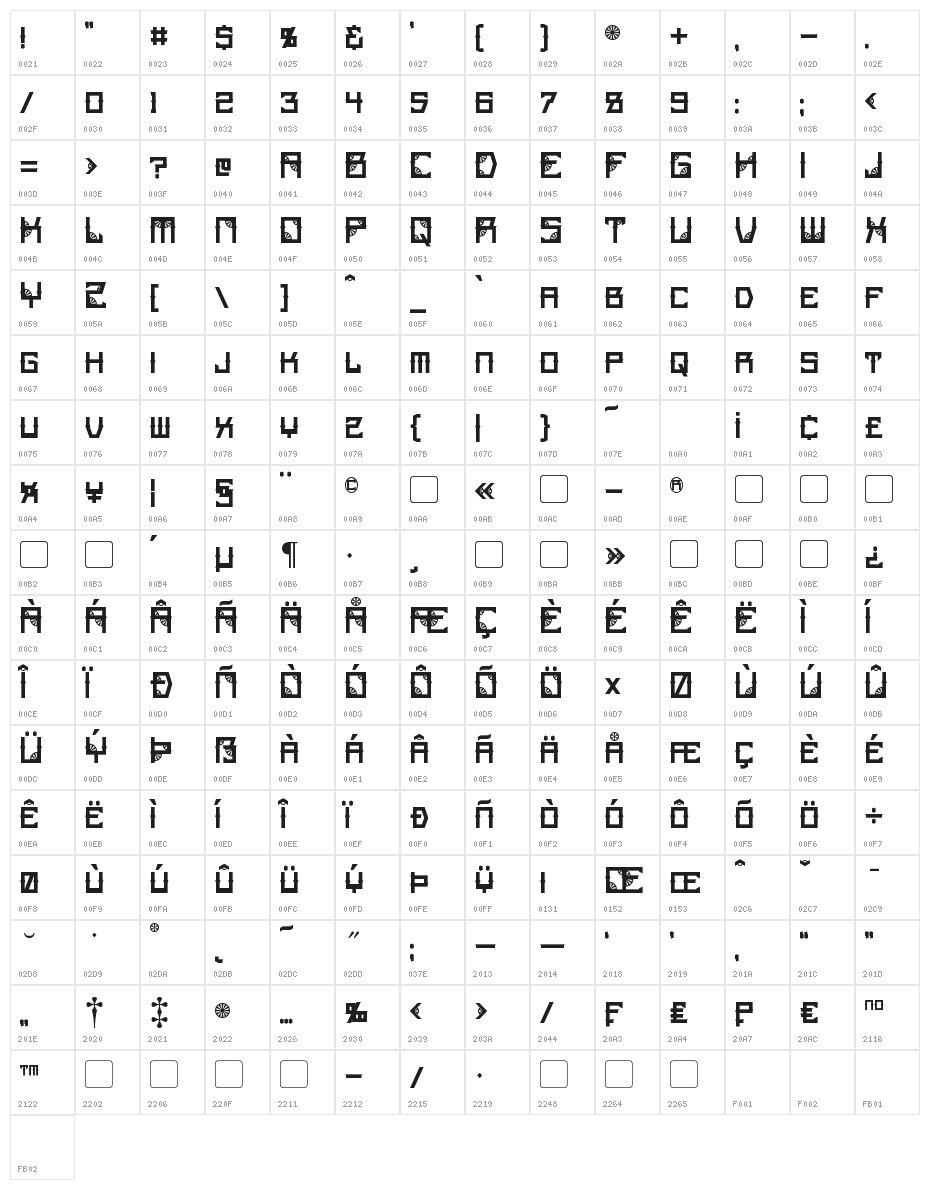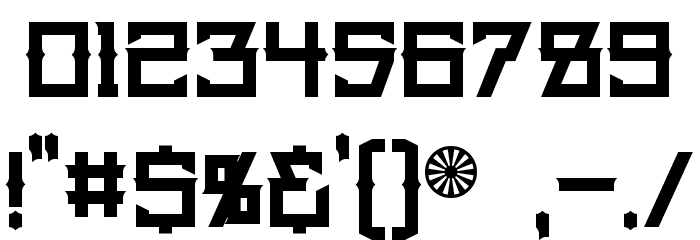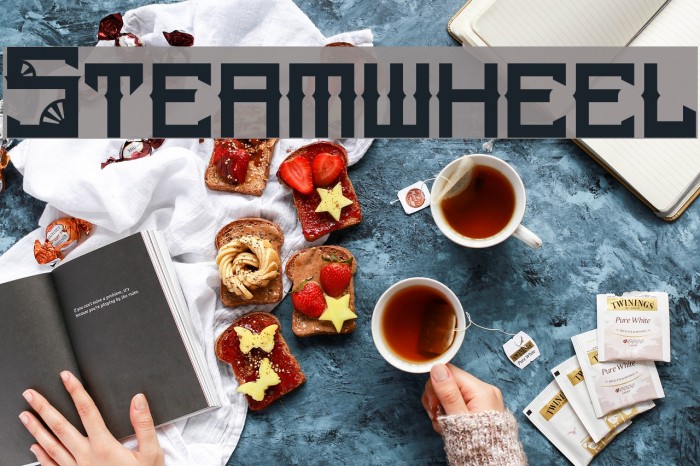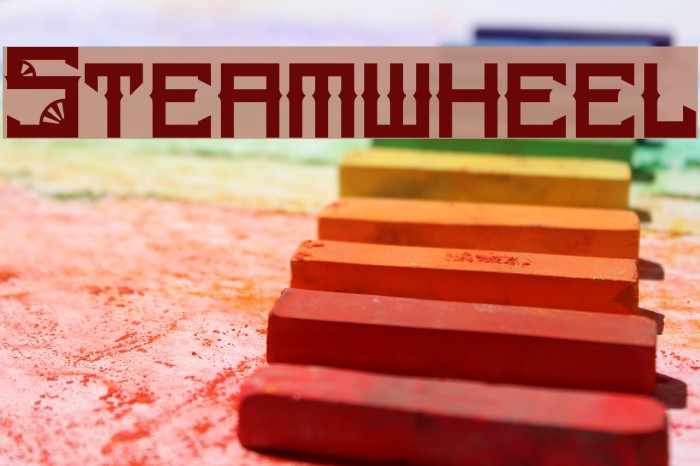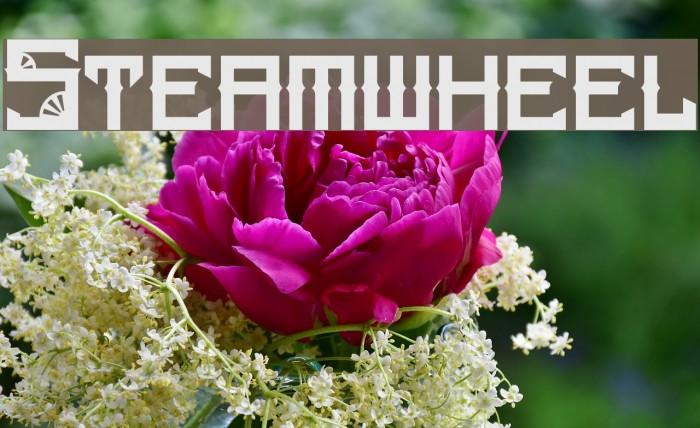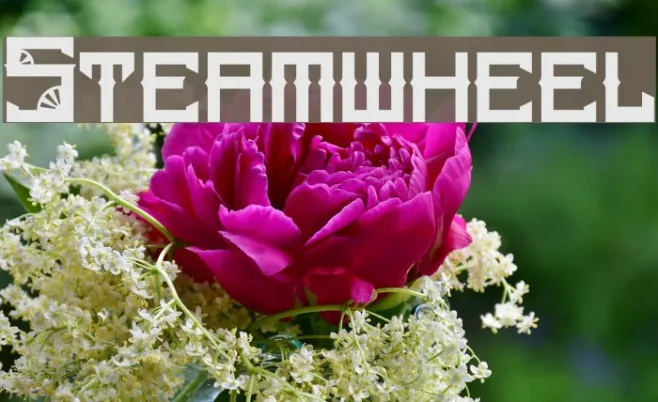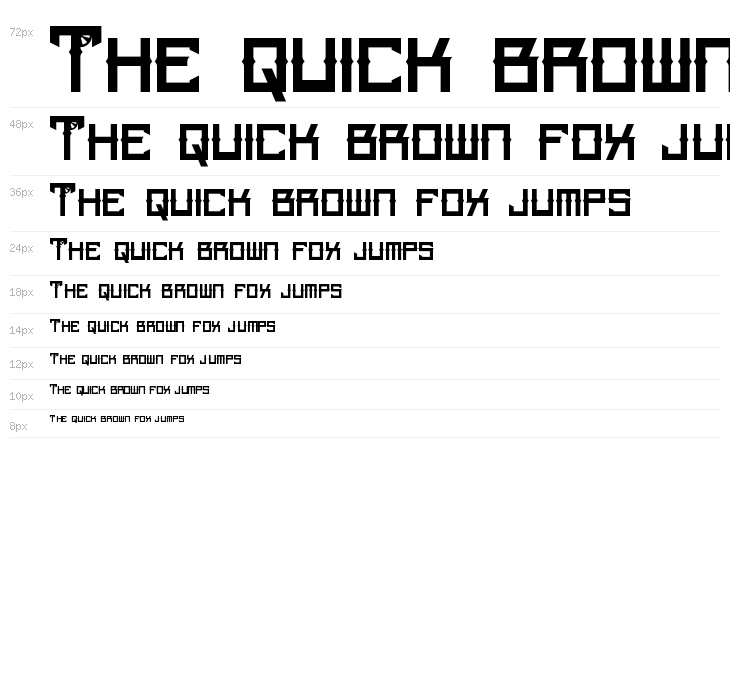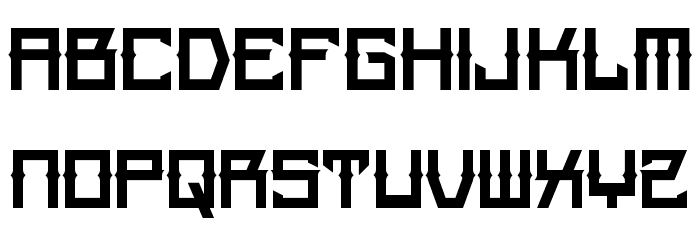
Steamwheel Font
Steamwheel Description
This font features a bold, geometric design with a distinct industrial and mechanical aesthetic. Each character is constructed with angular lines and sharp edges, incorporating intricate gear-like patterns within the letterforms. The uppercase and lowercase letters maintain a consistent style, emphasizing a futuristic and steampunk vibe. Numbers and special characters follow the same design principles, ensuring uniformity across all glyphs. The font's unique style makes it stand out, ideal for projects that require a strong visual impact and a touch of innovation.
| Overall Style | Futuristic, Industrial |
| Proposed Projects | Ideal for branding, posters, video game titles, and any project needing a mechanical or futuristic theme. |